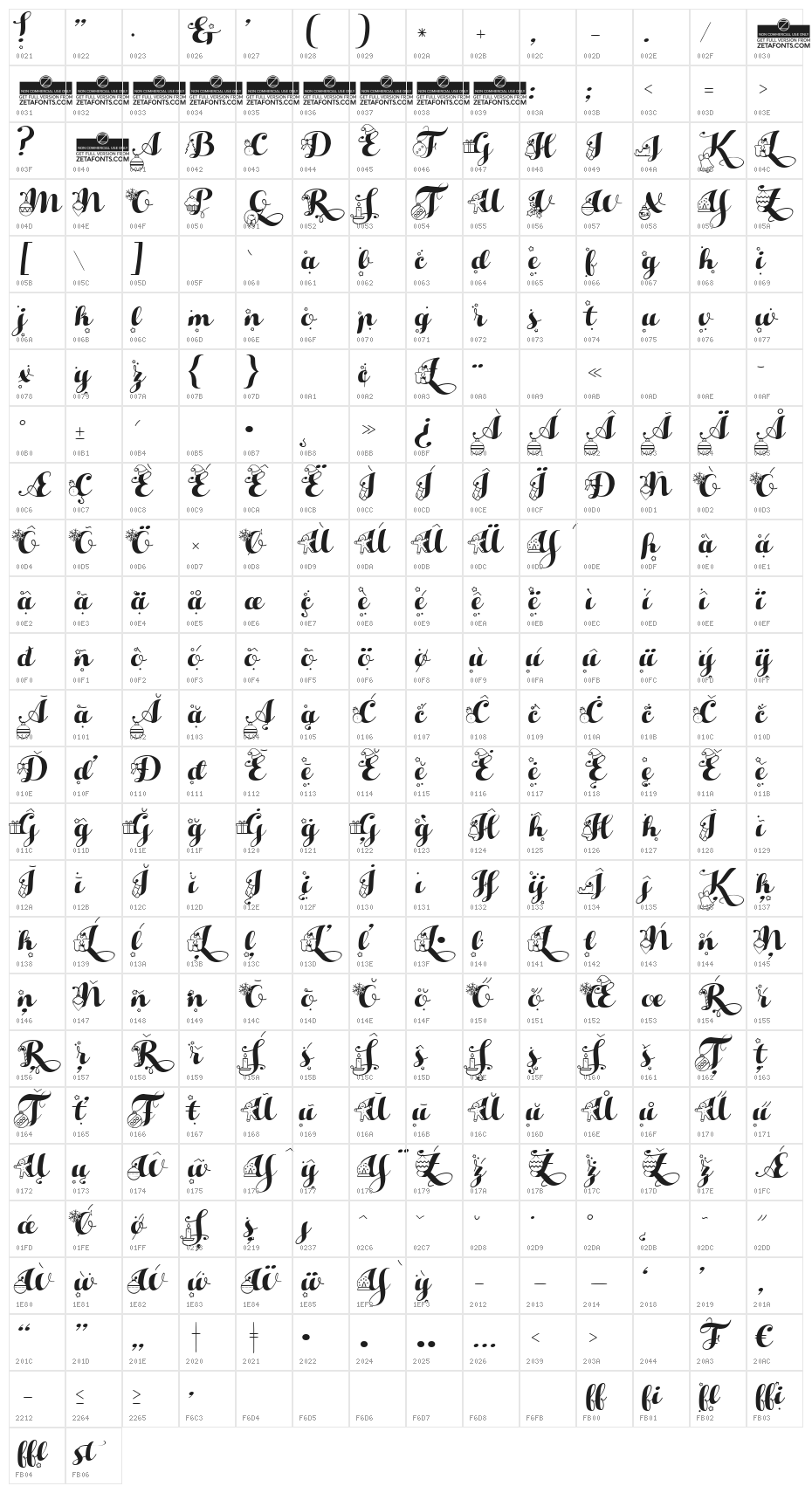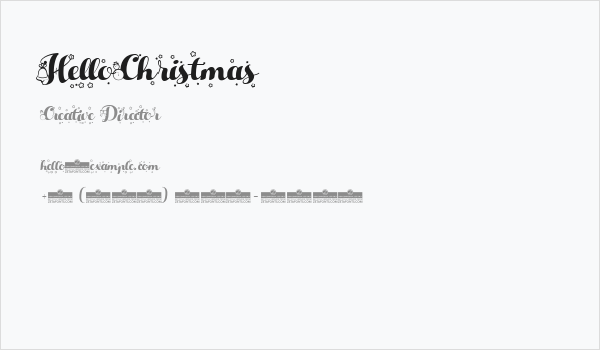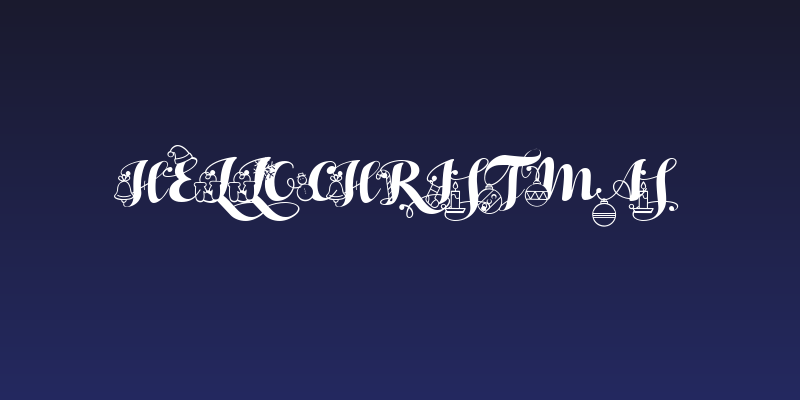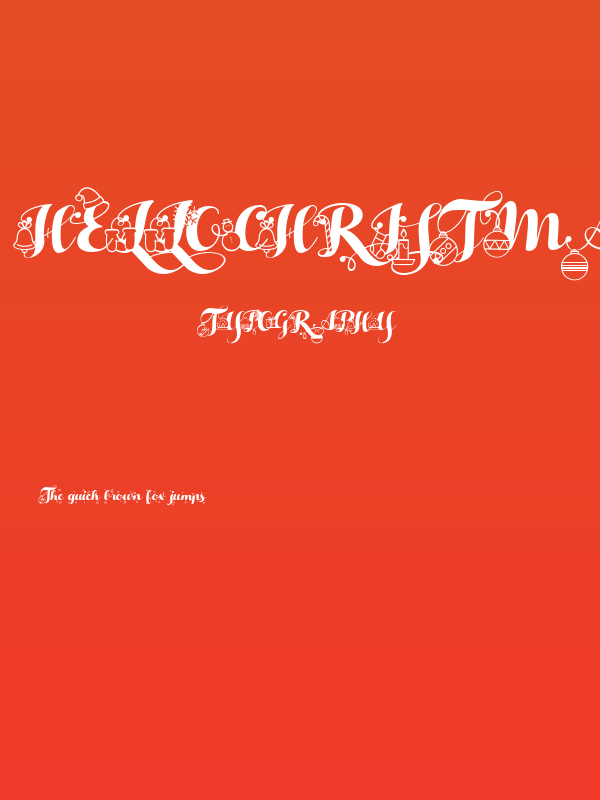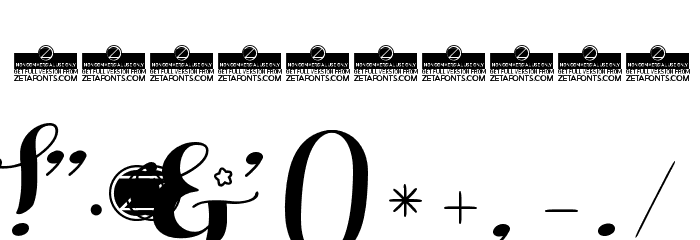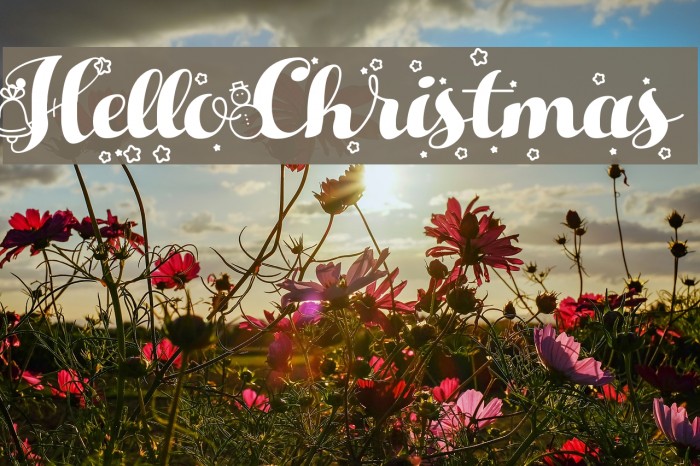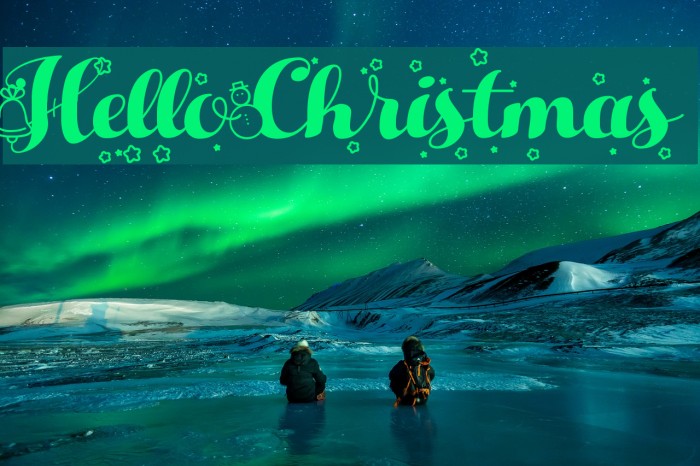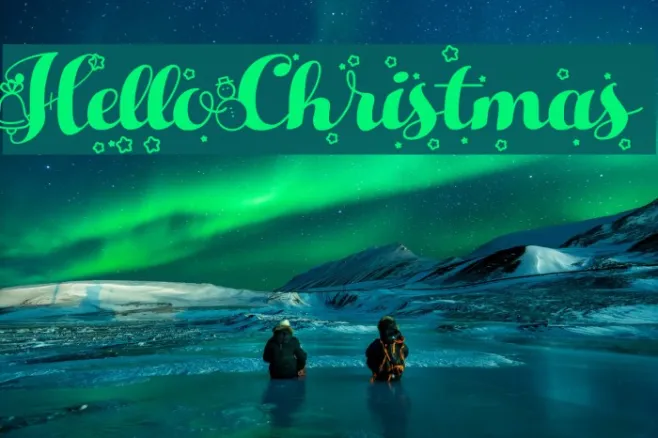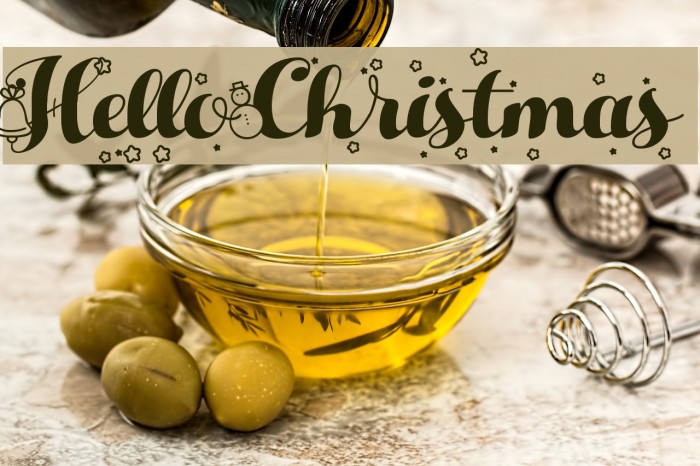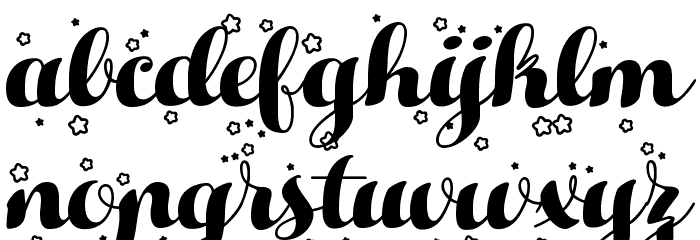
HelloChristmas Font
HelloChristmas Description
This festive font is adorned with charming holiday-themed elements, incorporating decorative ornaments, stars, and bells into its design. The uppercase letters are embellished with intricate details, making them perfect for capturing the spirit of the season. The lowercase letters maintain a smooth, flowing script style, adding elegance and warmth. The numbers and special characters are equally playful, featuring unique touches that enhance the overall holiday theme. This font is ideal for creating eye-catching holiday cards, festive invitations, and seasonal marketing materials.
| Proposed Projects | Ideal for holiday cards, festive invitations, seasonal marketing materials, and Christmas-themed designs. |